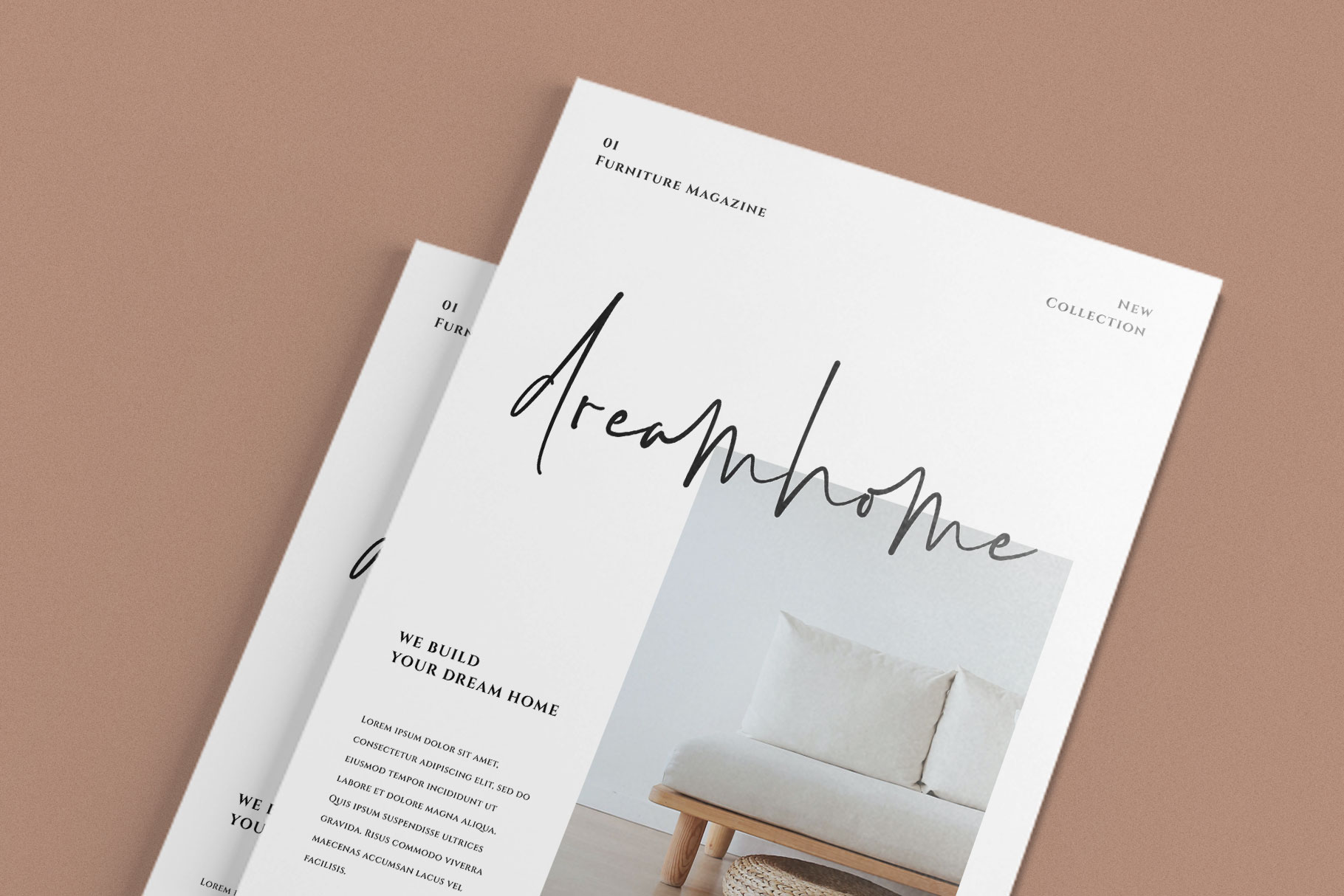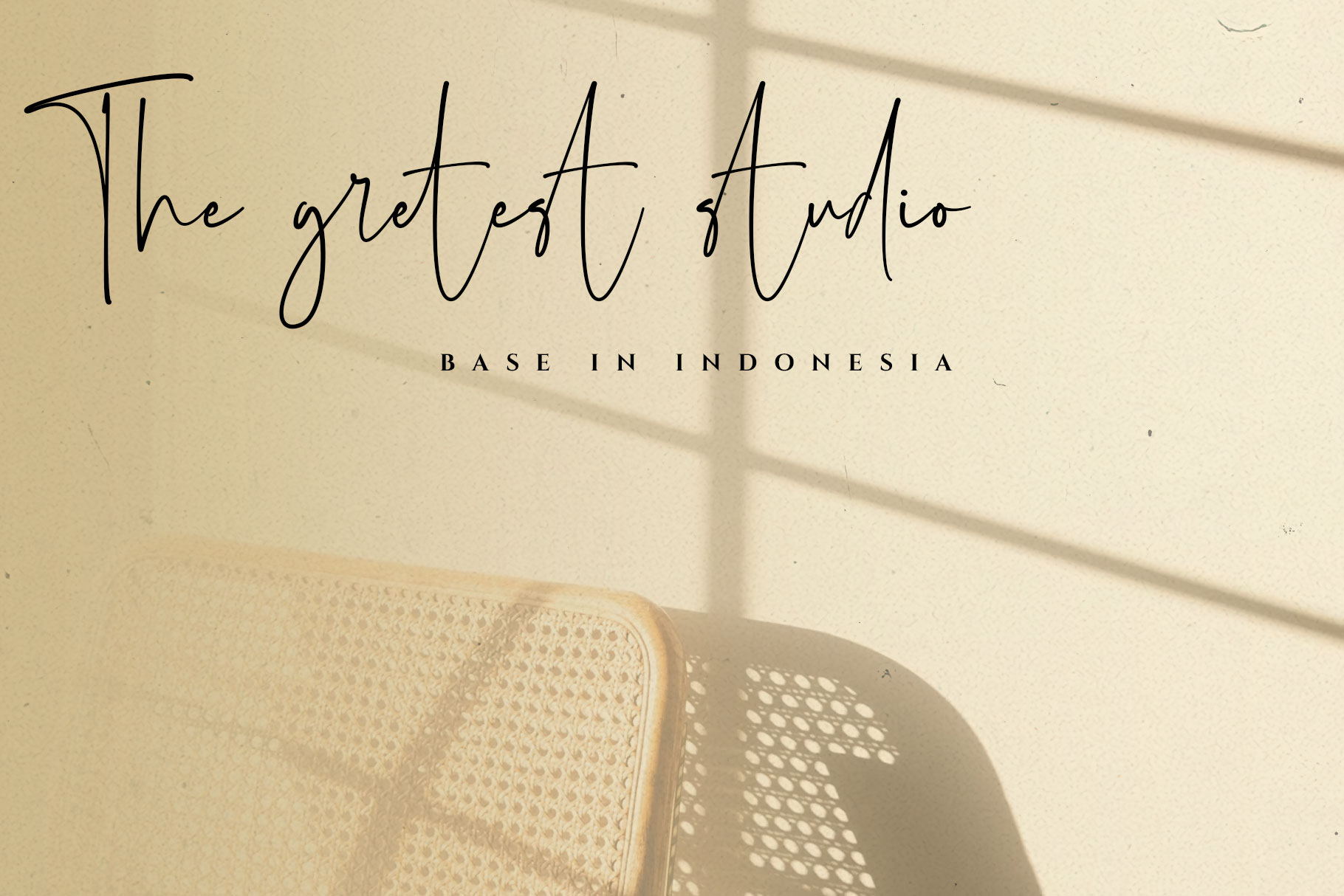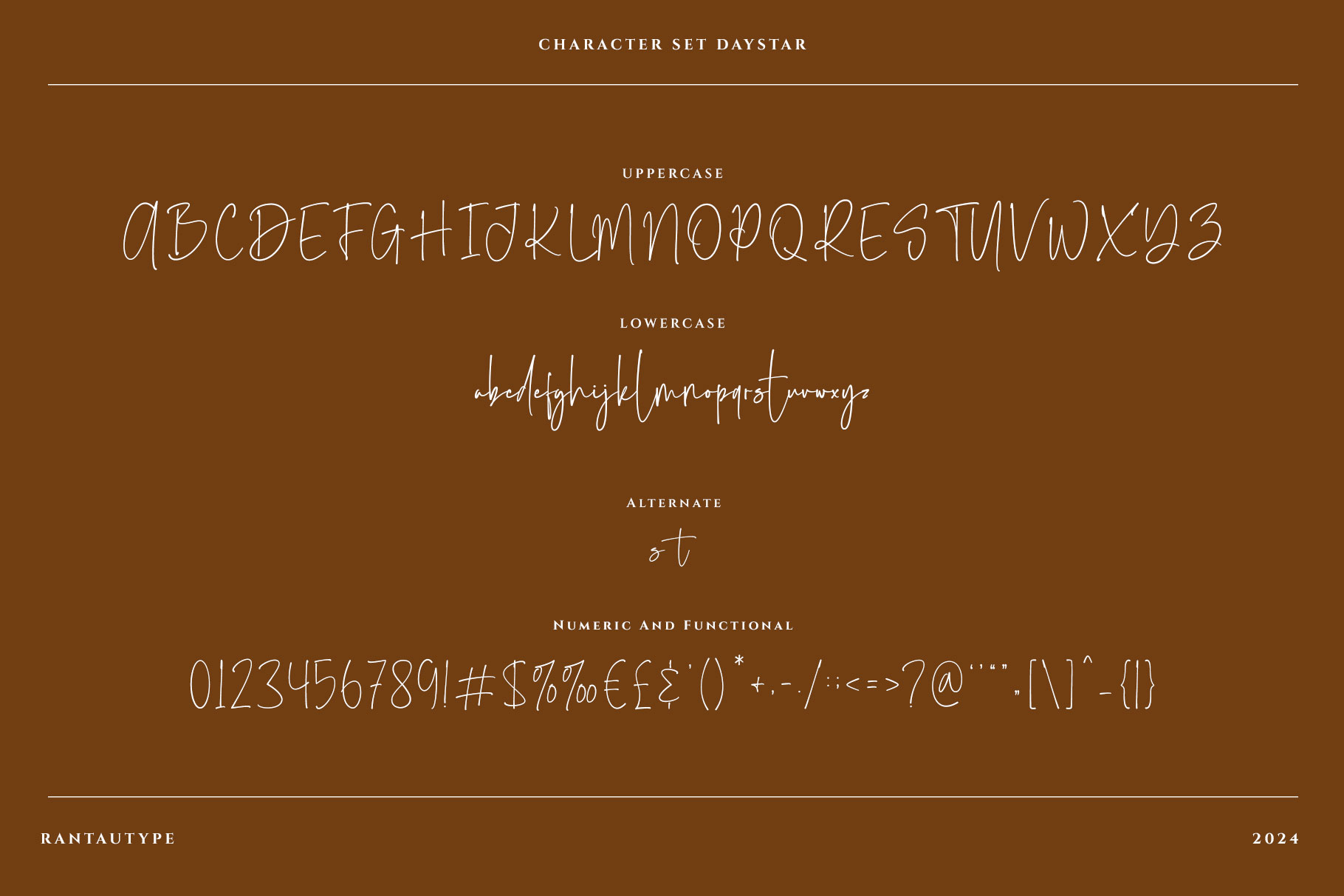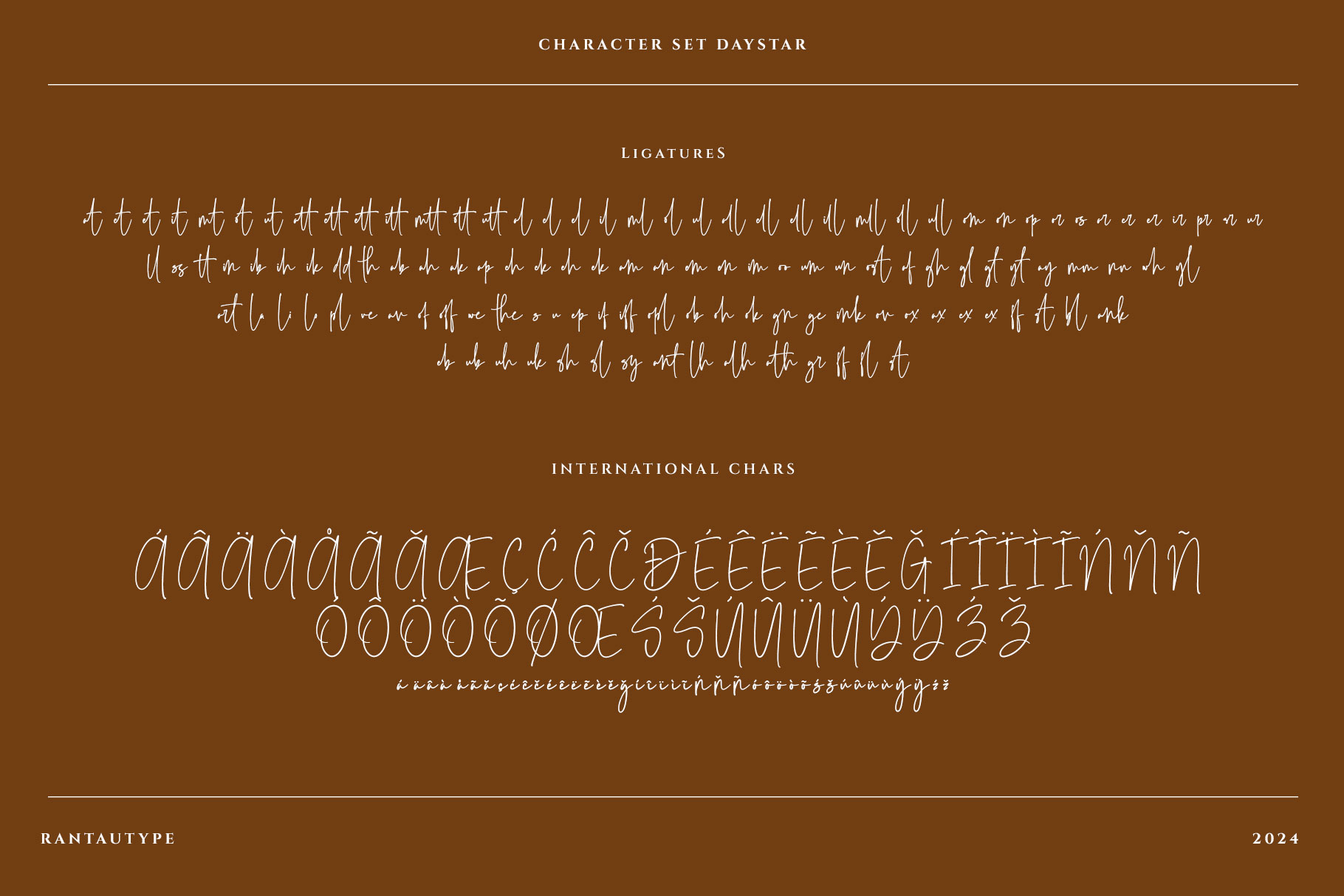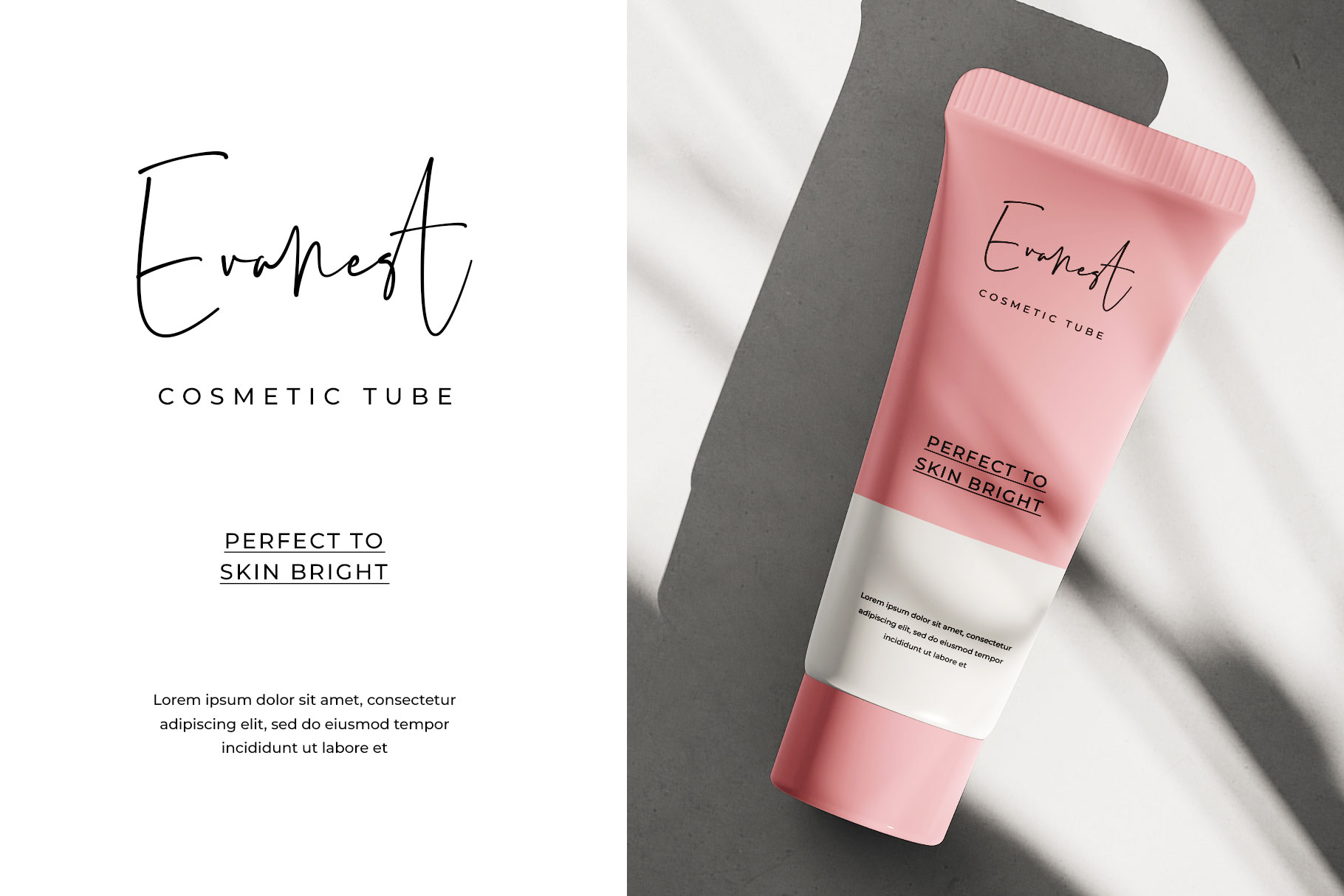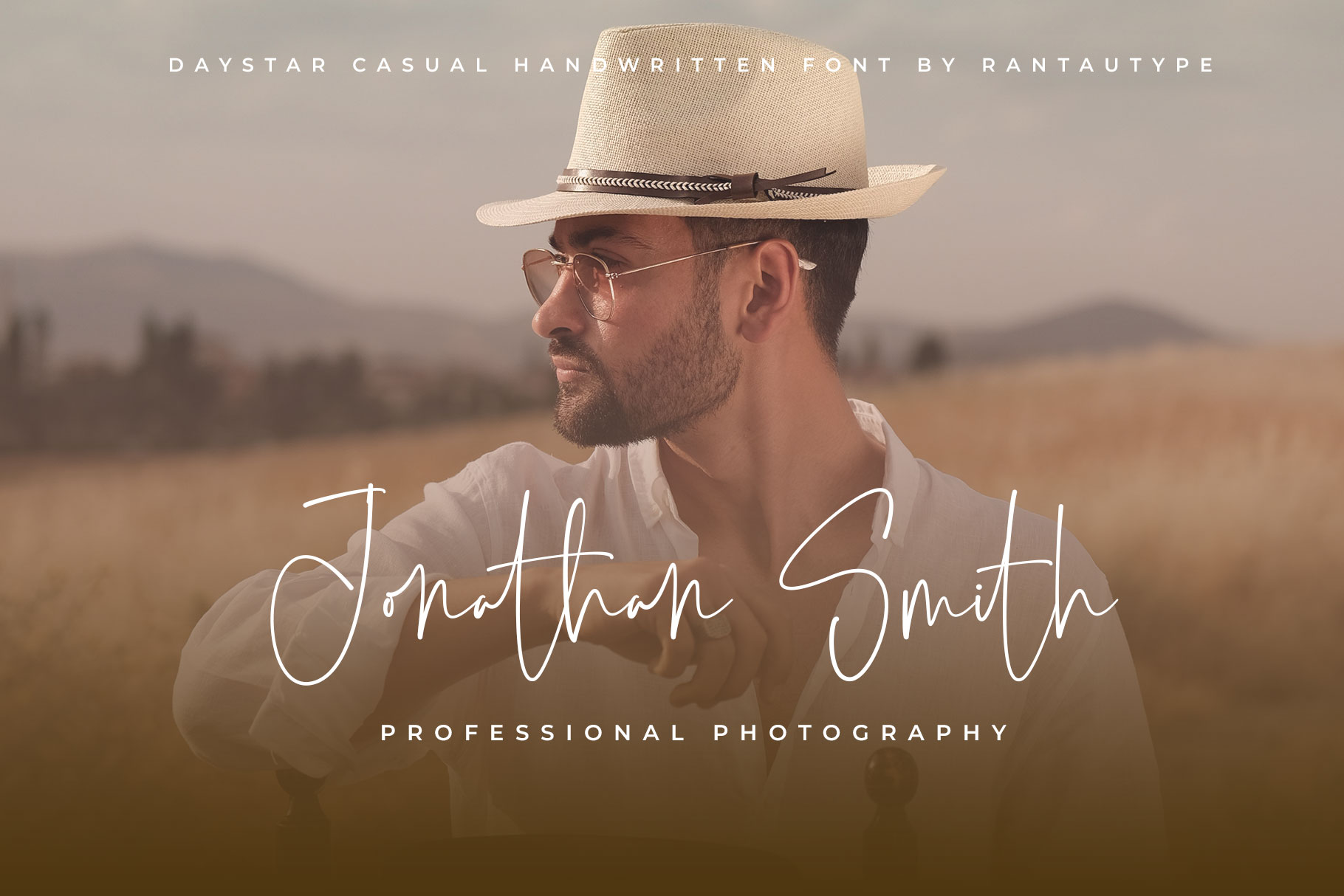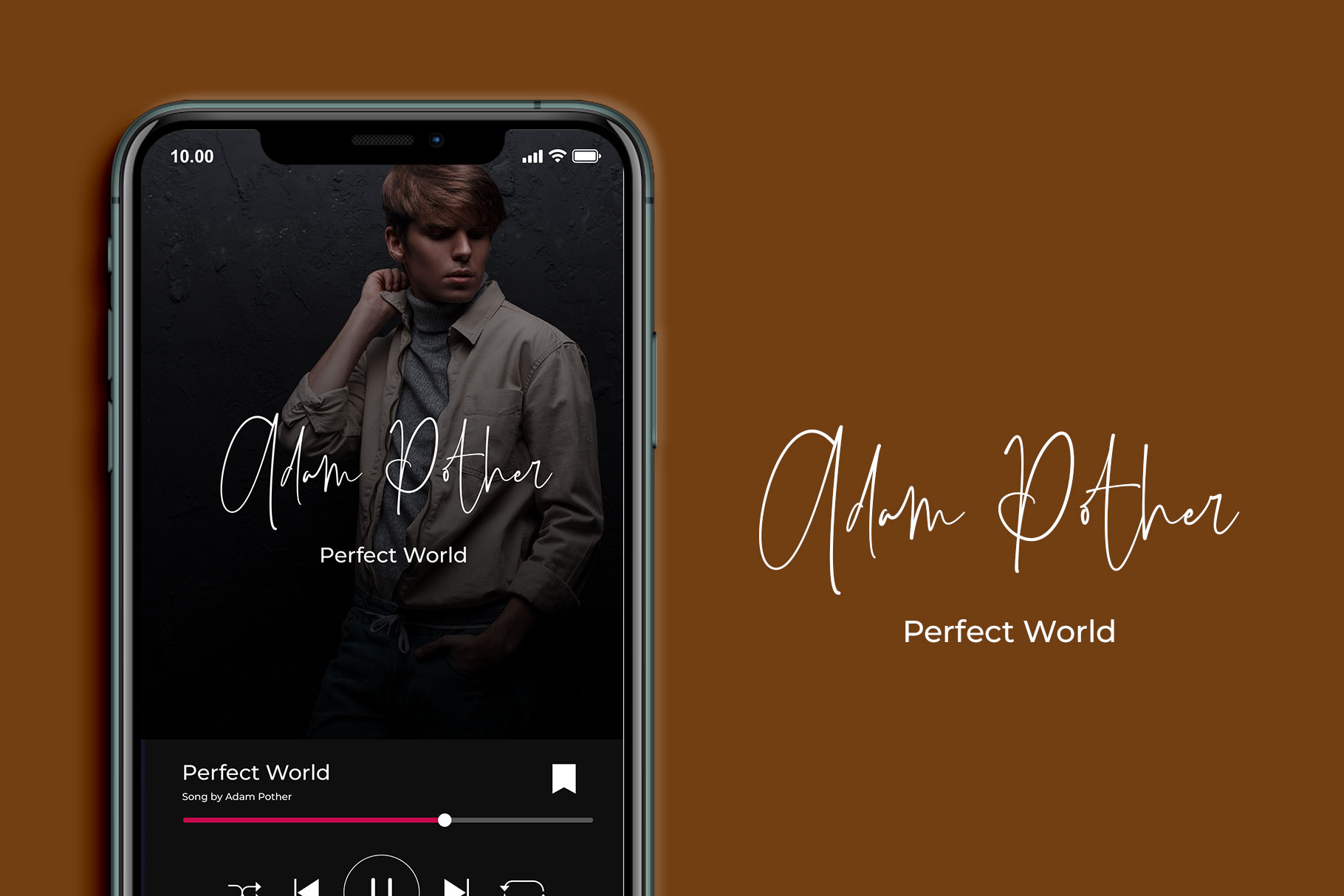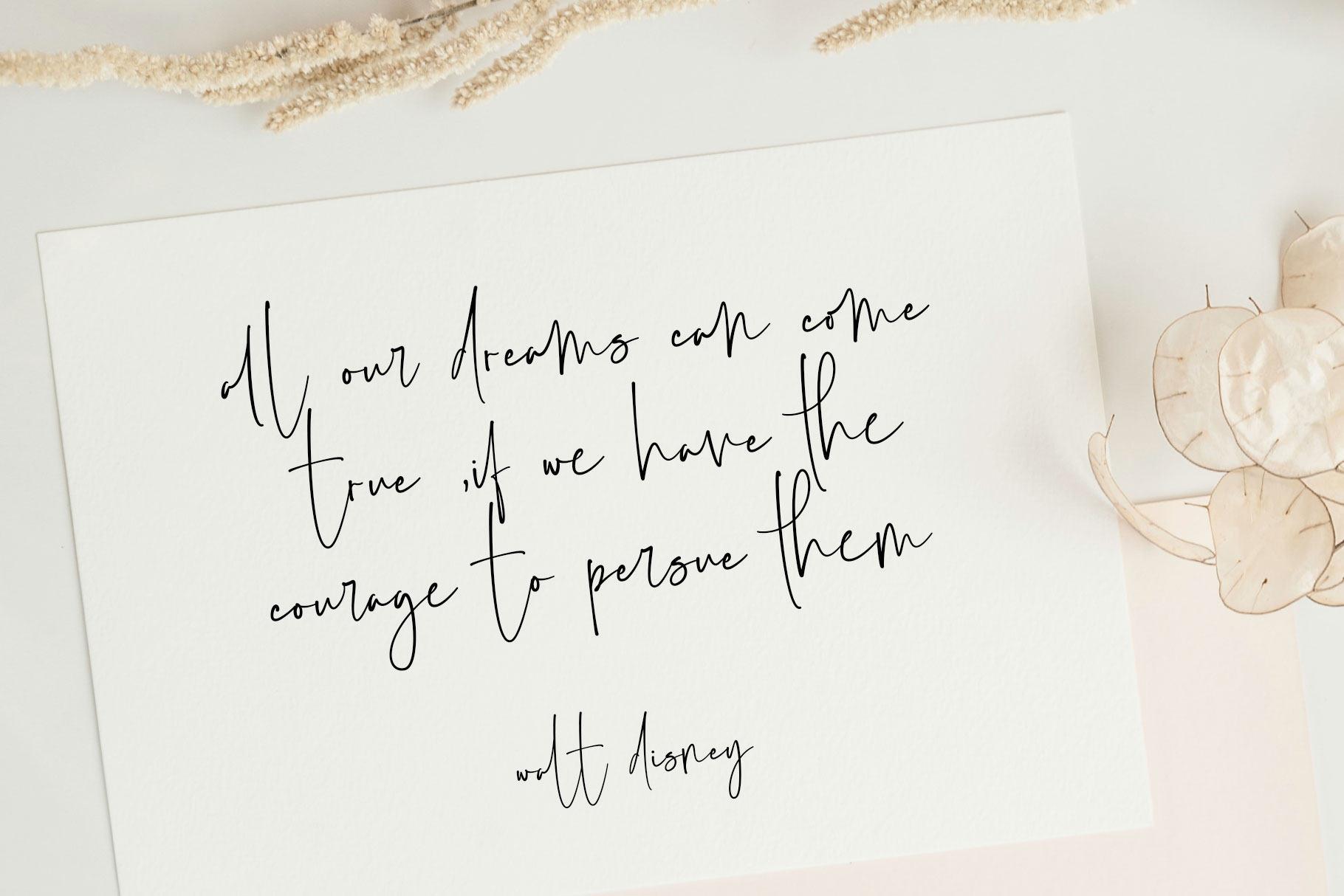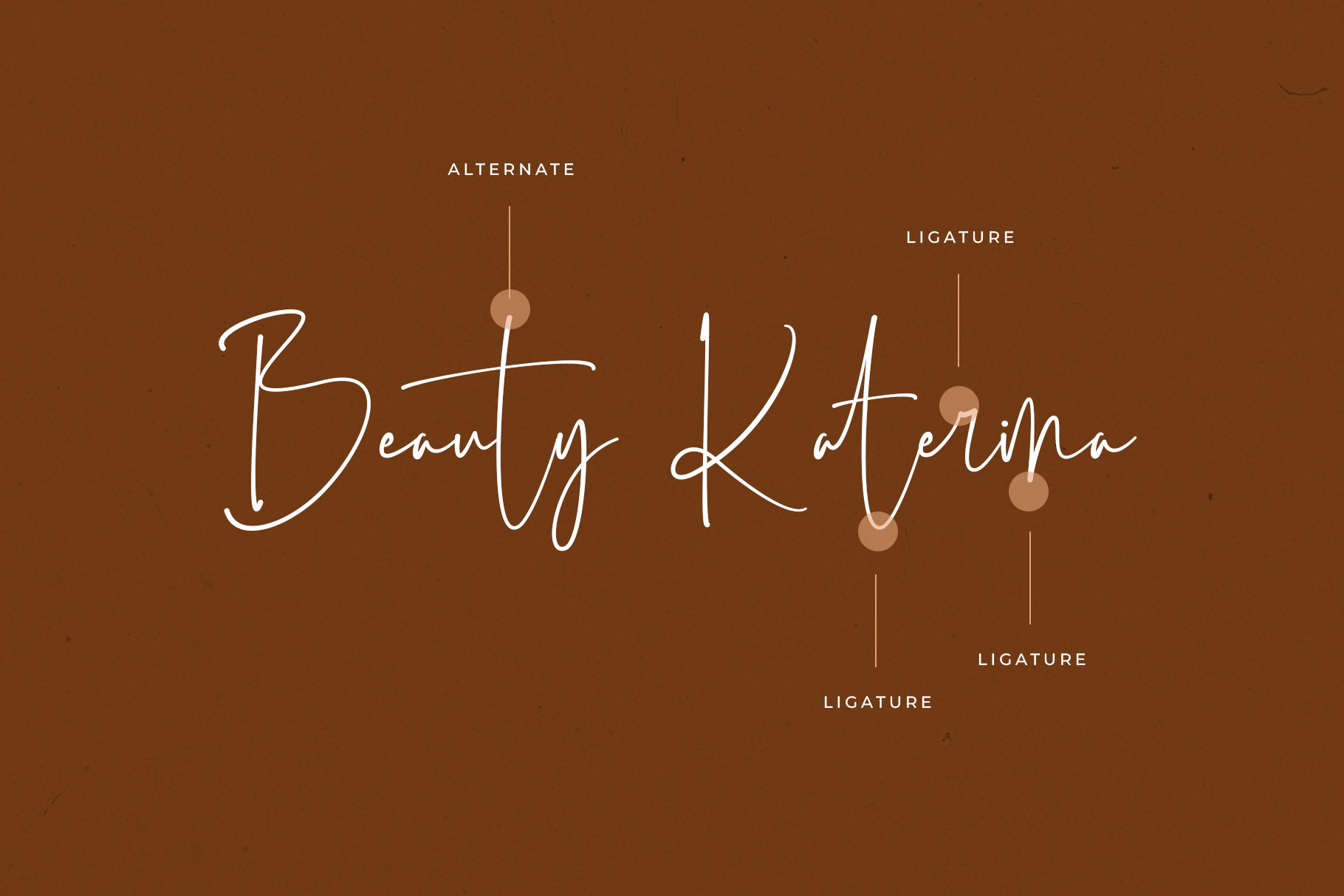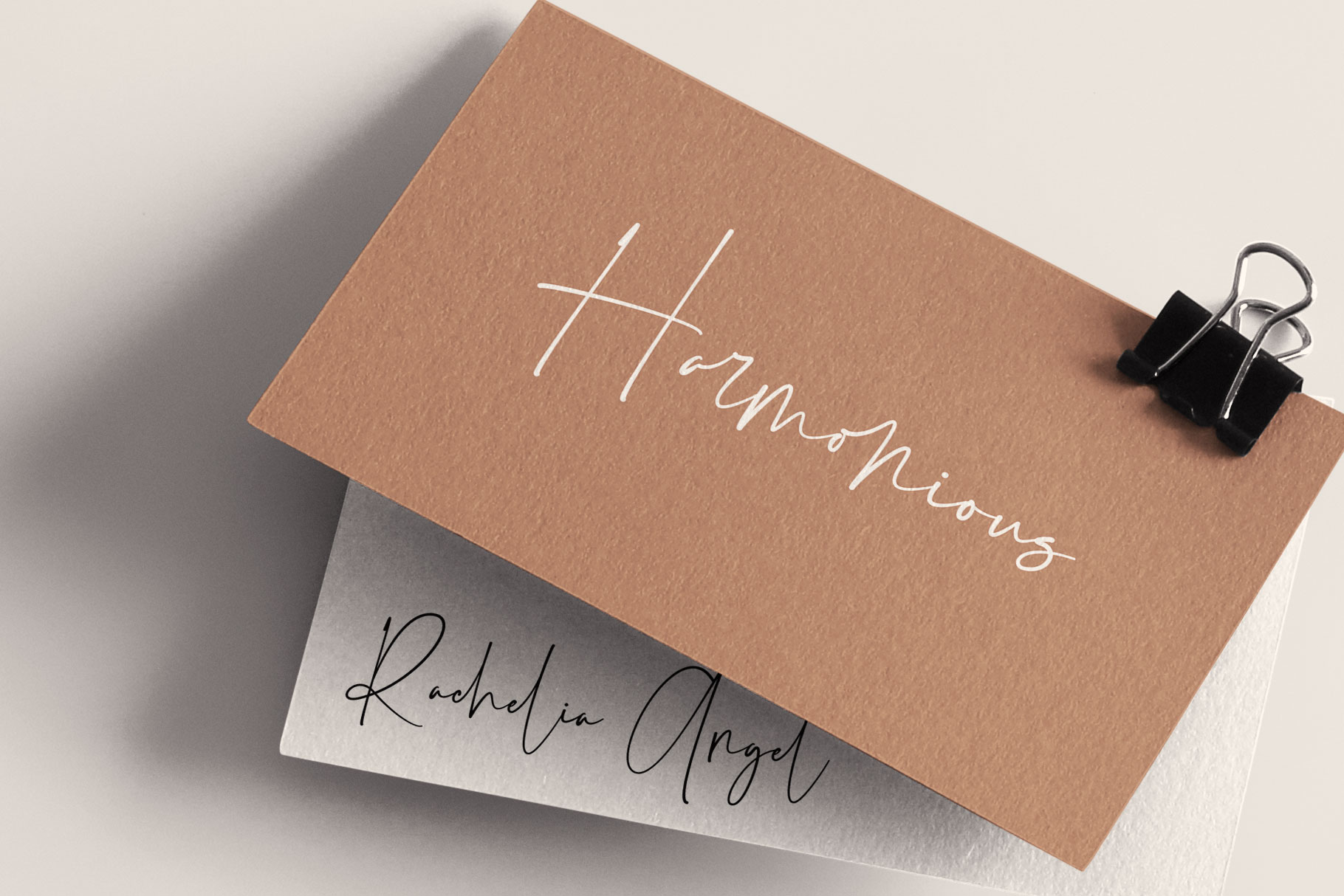
Daystar Casual Handwritten Font
Daystar is in a stylish handwritten font inspired by elegant brand and stylish concept. The curve give a casual look make it chic and classy. Daystar come with alternate, ligature and already support multingual accent character.